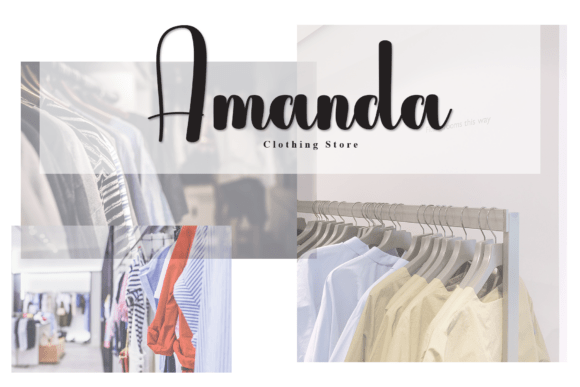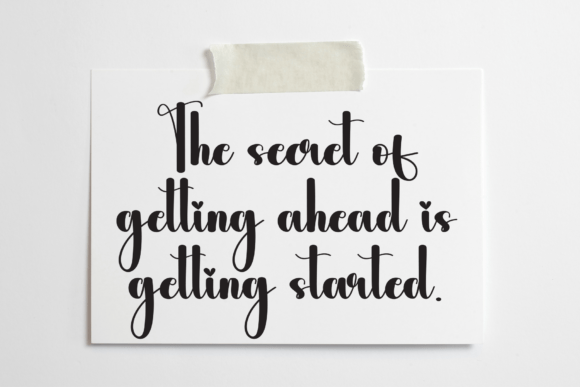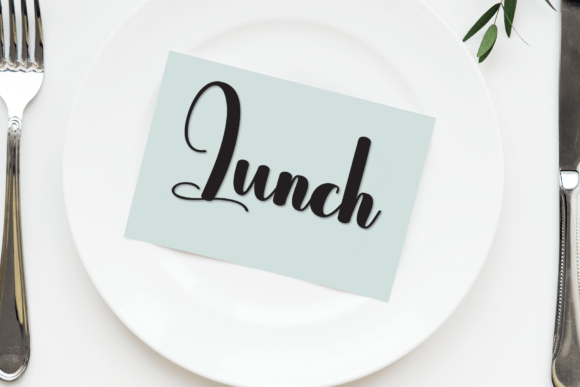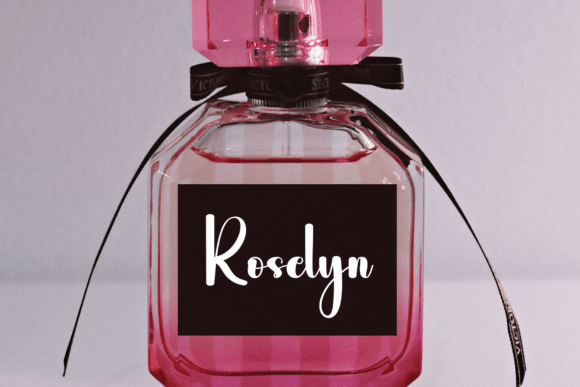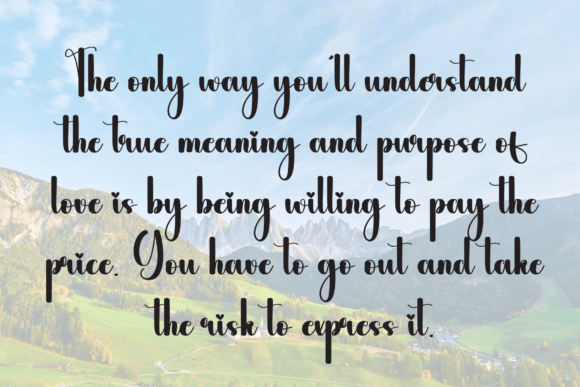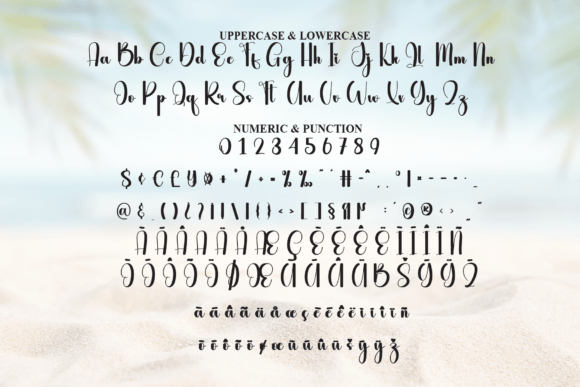
Introducing Beach Font: Elevate Your Designs with a Touch of Coastal Chic
Are you tired of using the same old fonts in your designs? Do you want to add a touch of coastal chic to your projects? Look no further than Beach Font, the latest addition to your font collection. Our Beach Font is specially crafted to provide you with an extraordinary experience, perfect for a wide range of design applications.
Beach Font is designed to be versatile and can be used in various projects, including:
- Wall displays
- Wedding invitations
- Social media post logos
- Advertisements
- Product packaging
- Product designs
- Labels
- Photography
- Watermarks
- Invitations
- Stationery
Whether you’re a designer, crafter, or DIY enthusiast, Beach Font is the perfect addition to your toolkit.
Why Choose Beach Font?
Beach Font is more than just a font – it’s an experience. Our font is designed to provide you with a unique and creative way to express yourself. With its beautiful, hand-crafted letters, you’ll be able to add a touch of elegance and sophistication to your designs.
Our font is perfect for:
- Designers looking for a unique font to add to their collection
- Crafters who want to create beautiful, handmade projects
- DIY enthusiasts who want to add a personal touch to their designs
Here are some tips and tricks to help you get the most out of Beach Font:
- Use Beach Font to create stunning wall displays for your home or office
- Add a touch of coastal chic to your wedding invitations or social media posts
- Use Beach Font to create beautiful product packaging or labels
Beach Font is the perfect addition to your design toolkit. With its beautiful, hand-crafted letters and versatile design, you’ll be able to create stunning projects that will leave a lasting impression. So why wait? Download Beach Font today and start experiencing the extraordinary!